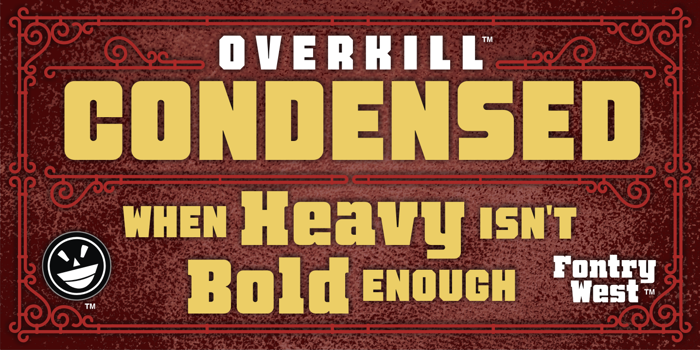
FTY OverKill HammeredNC Font
FTY Overkill Condensed™ Font Family. A collection of 3 fonts with language support and Opentype features.
For logos, signs, posters, headlines, titles and display type of all kinds, when bold, black or heavy are not enough – OVERKILL™! A condensed type collection, Machined™, Hammered™ or Ironclad™ pacify all resistance.
The Overkill Condensed™ family supports multiple languages and OpenType alternates.